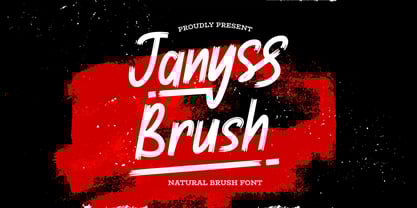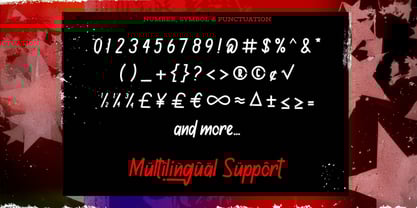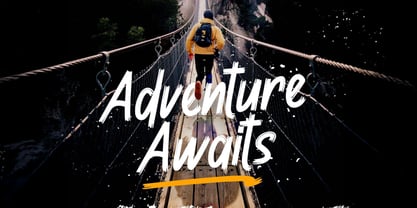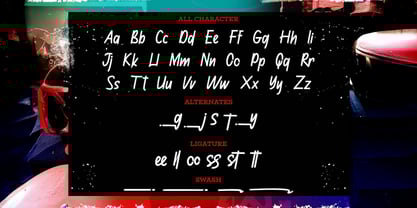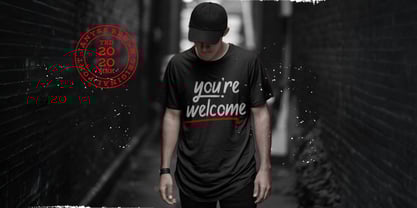
Janyss Brush
by Stringlabs Creative Studio
The Janyss Brush Font Family was designed by Virgiawan Listanto and published by Stringlabs Creative Studio. Janyss Brush contains 1 styles.
Janyss Brush is a natural brush font. Fall in love with its incredibly versatile style and use it to create spectacular designs! This font is PUA encoded which means you can access all of the glyphs and swashes with ease!
Designers: Virgiawan Listanto
Publisher: Stringlabs Creative Studio
Foundry: Stringlabs Creative Studio
Design Owner: Stringlabs Creative Studio